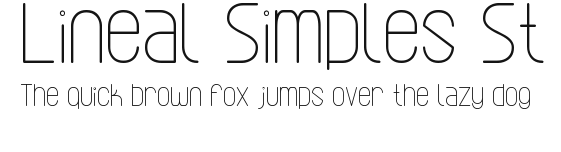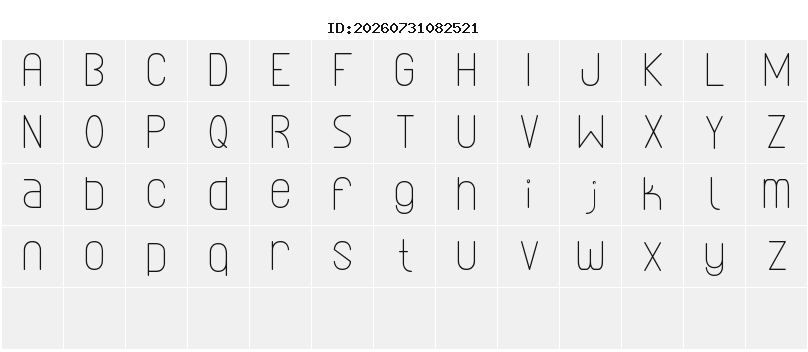
• Font Name: Lineal Simples St
• Full Font Name: Lineal Simples St
• Description: Lineal Simple Southype
About Lineal Simples St.ttf
Lineal Simples St.ttf is a modern, elegant sans-serif font designed for ultimate readability and visual harmony. Perfect for branding, headlines, web design, and print materials.